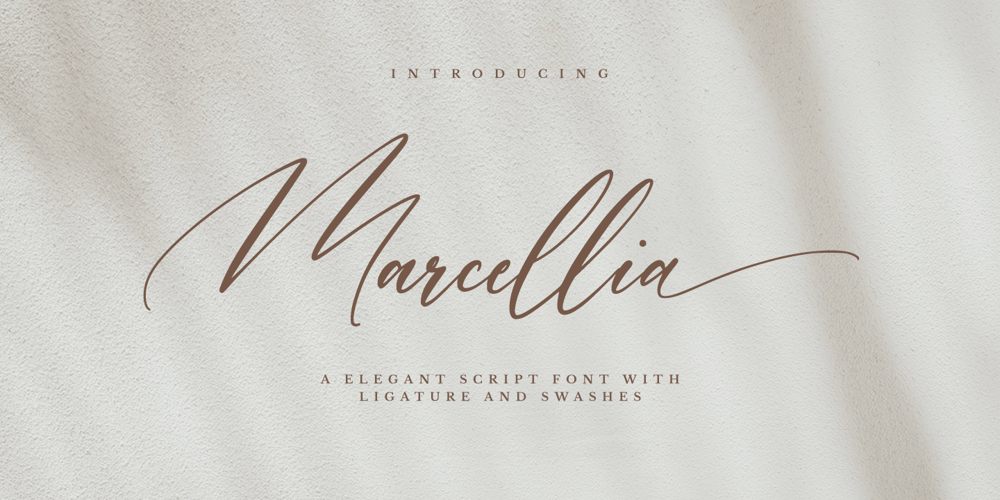
Marcellia
Marcellia font
Marcellia Font Family was designed by Hayinah and published by Rockboys Studio. Marcellia contains 1 styles and family package options. The Athallia is a lovely calligraphy font. It comes with amazing alternates and is a mixture from copperplate calligraphy with hand-lettering styles. It was designed to covey elegance and has an attractive, smooth, clean, feminine, sensual style.